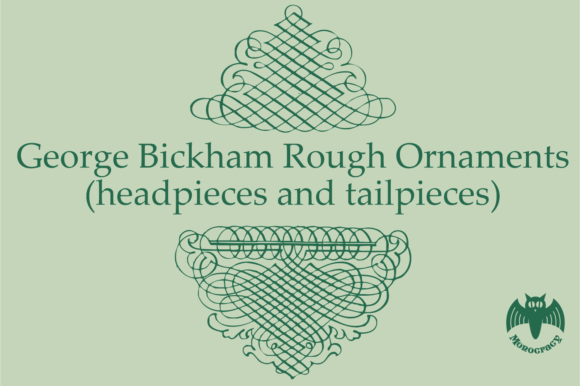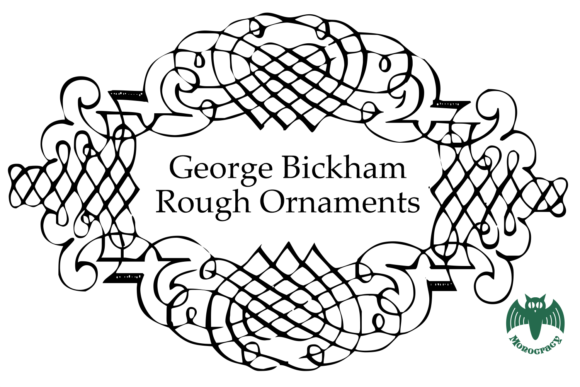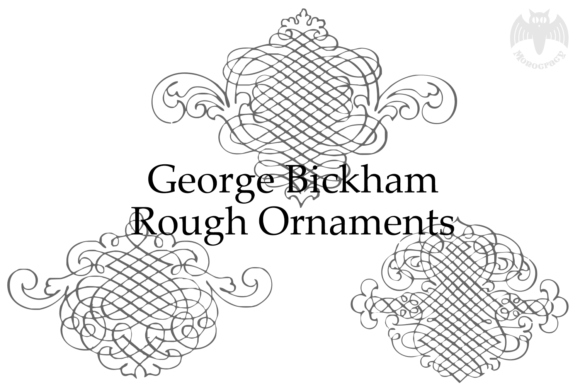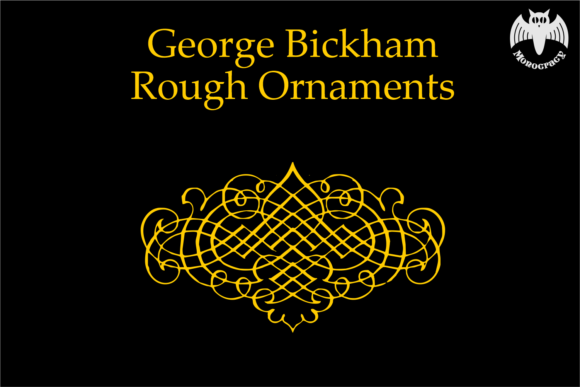
George Bickham Rough Ornaments Font
About George Bickham Rough Ornaments Font
George Bickham Rough Ornaments is indeed a classic and unique dingbats font that adds a touch of elegance and sophistication to your designs. Here are some reasons why George Bickham Rough Ornaments is a great choice for enhancing your designs:
1. Classic and Timeless Style: George Bickham Rough Ornaments embodies a classic style that harks back to traditional typography. The ornate and intricate designs of the ornaments have a vintage charm that adds a sense of elegance and refinement to your projects. Whether you’re designing invitations, certificates, or other formal materials, this font can lend a touch of timeless beauty.
2. Versatile Ornaments: This font offers a wide range of ornamental elements that can be used to enhance your designs. From borders and frames to decorative flourishes and dividers, the ornaments in George Bickham Rough Ornaments provide you with ample choices to complement and embellish your text or graphics. These versatile ornaments can be easily incorporated into various design styles, from classic and elegant to rustic and vintage.
3. Attention to Detail: The intricacy and fine details of George Bickham Rough Ornaments showcase the craftsmanship and artistry of the font. Each ornament is meticulously designed, creating a sense of precision and quality in your designs. These details not only add visual interest but also demonstrate a level of professionalism and care in your work.
4. Unique and Distinctive Look: George Bickham Rough Ornaments has a distinct style that sets it apart from other dingbats fonts. The rough texture and imperfect lines give it a hand-drawn and vintage appearance. This unique look adds character and personality to your designs, making them stand out and leaving a lasting impression on viewers.
5. Enhances Typography: When combined with other fonts, George Bickham Rough Ornaments can elevate the typography in your designs. You can use the ornaments as decorative accents within lettering, create intricate drop caps, or use them to emphasize specific words or phrases. By incorporating these ornamental elements, you can create visually captivating and dynamic typographic compositions.
6. Suitable for Various Projects: George Bickham Rough Ornaments is versatile and can be used in a wide range of projects. Whether you’re working on wedding invitations, book covers, branding materials, or decorative art, this font can add a touch of sophistication and elegance. It’s particularly well-suited for projects that require a classic and refined aesthetic.
By leveraging the classic and unique style of George Bickham Rough Ornaments, you can enhance the visual appeal and elevate the overall quality of your designs. Its versatile ornaments, attention to detail, distinctive look, and ability to enhance typography make it an excellent choice for various projects. So, embrace the elegance of George Bickham Rough Ornaments and let it add a touch of timeless beauty to your designs.